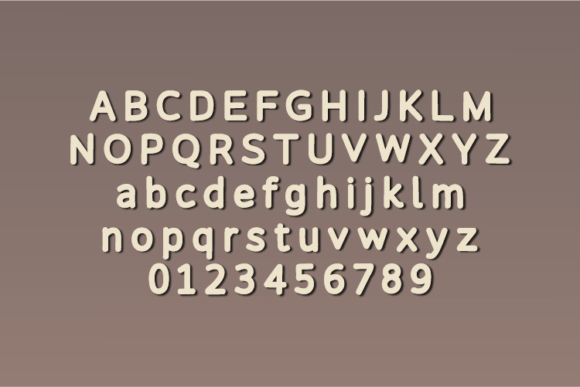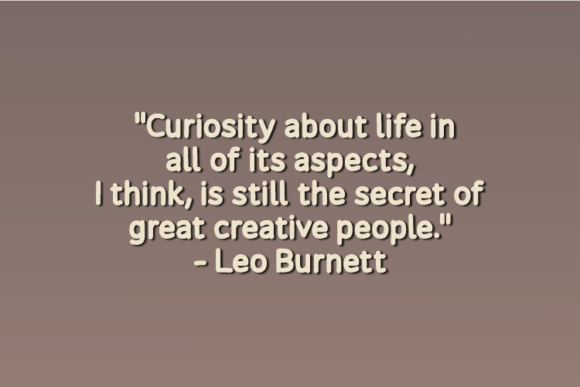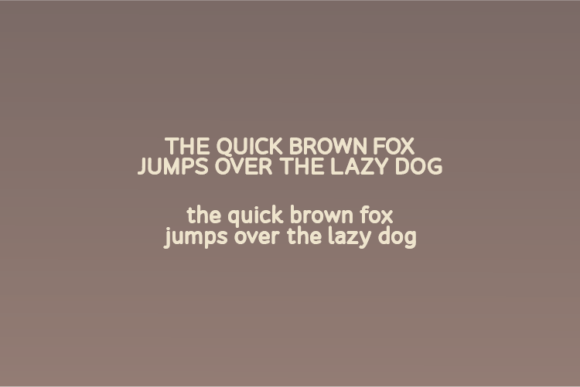
Hello Avocado Font: A Fresh and Unique Sans Serif Font for Designers
Are you tired of using the same old fonts in your designs? Look no further than Hello Avocado, a natural sans serif font that’s sure to add a touch of freshness to your projects. What sets Hello Avocado apart is its unique approach to font design, where not a single node in each character’s indentation has been altered. This attention to detail makes Hello Avocado a standout in the world of typography.
The Story Behind Hello Avocado
Hello Avocado is more than just a font – it’s a design statement. Created with the goal of producing a font that’s both natural and unique, Hello Avocado’s designers have succeeded in crafting a sans serif font that feels both modern and approachable. By leaving the indentation of each character untouched, they’ve created a font that has a distinctly handmade feel, perfect for designers looking to add a personal touch to their work.
Key Features of Hello Avocado
- Natural Sans Serif: Hello Avocado boasts a clean and natural sans serif design that’s perfect for a wide range of applications.
- Unique Indentation: The font’s unique approach to character indentation sets it apart from other sans serif fonts.
- Versatile: Hello Avocado is perfect for use in quotes, notes, tees, and any product design where a fresh and modern look is desired.
Hello Avocado is a dream come true for designers and crafters looking for a font that can add a touch of personality to their work. Whether you’re designing a t-shirt, creating a quote graphic, or working on a product design project, Hello Avocado is the perfect choice. Its unique character and natural feel make it an excellent addition to any design.
Why Choose Hello Avocado?
There are many fonts available to designers and crafters, but Hello Avocado stands out for several reasons:
- Uniqueness: Hello Avocado’s unique approach to font design ensures that your work will stand out from the crowd.
- Versatility: The font’s natural sans serif design and unique indentation make it perfect for a wide range of applications.
- Ease of Use: Hello Avocado is easy to read and works well in both digital and print formats.
Using Hello Avocado in Your Designs
Using Hello Avocado in your designs is easy. Here are a few tips to get you started:
- Pair it with Other Fonts: Hello Avocado pairs well with a variety of other fonts, making it easy to create visually interesting designs.
- Experiment with Sizes: The font’s unique indentation makes it work well at a variety of sizes, from large headings to smaller body text.
- Play with Color: Hello Avocado works well in a variety of colors, so don’t be afraid to experiment and find the perfect hue for your design.
Hello Avocado is a unique and versatile font that’s perfect for designers and crafters looking to add a touch of personality to their work. Its natural sans serif design and unique indentation make it an excellent choice for a wide range of applications, from quotes and notes to tees and product design. With its ease of use and flexibility, Hello Avocado is sure to become a go-to font in any designer’s toolkit.